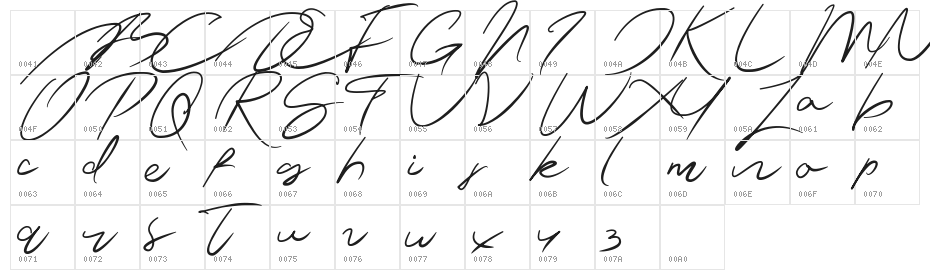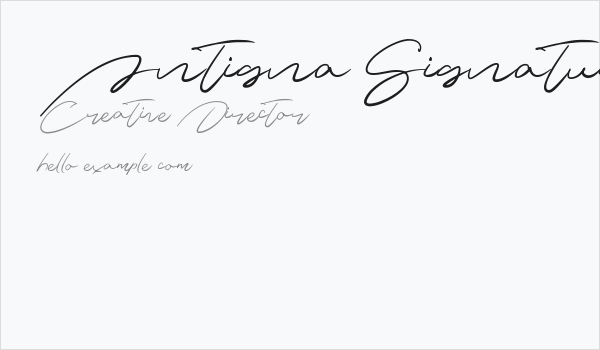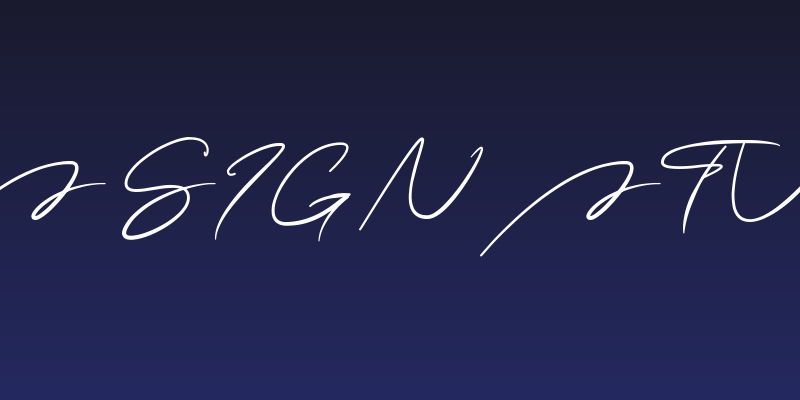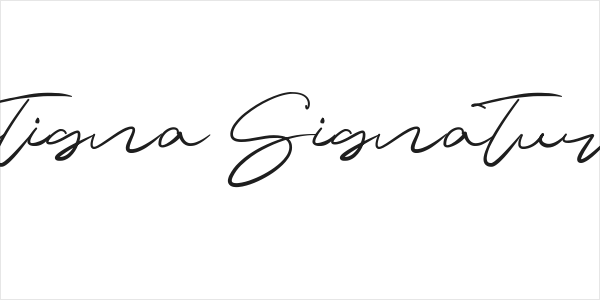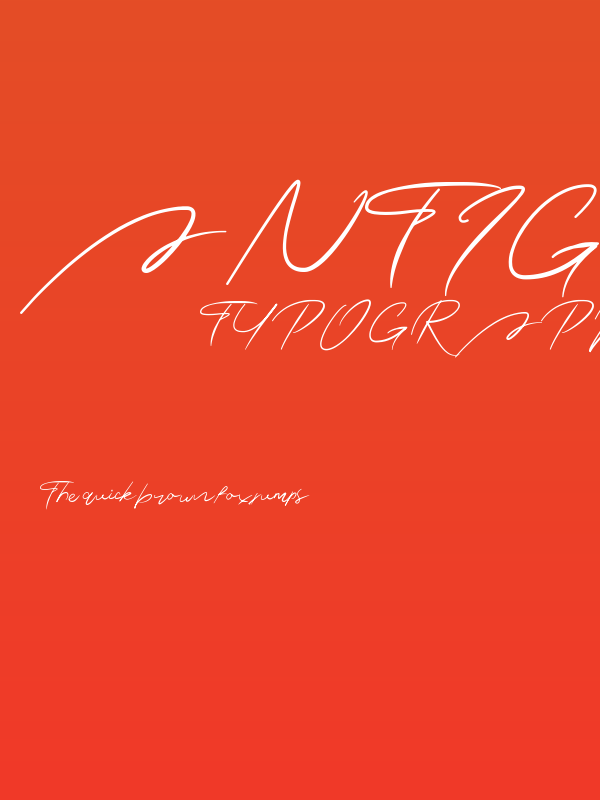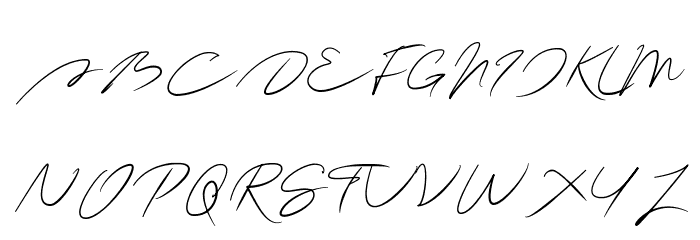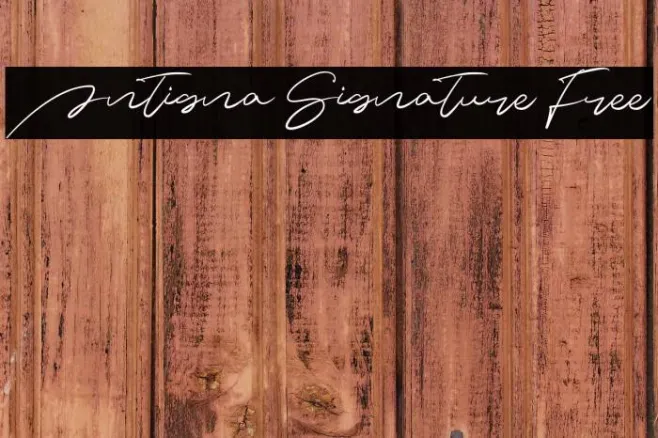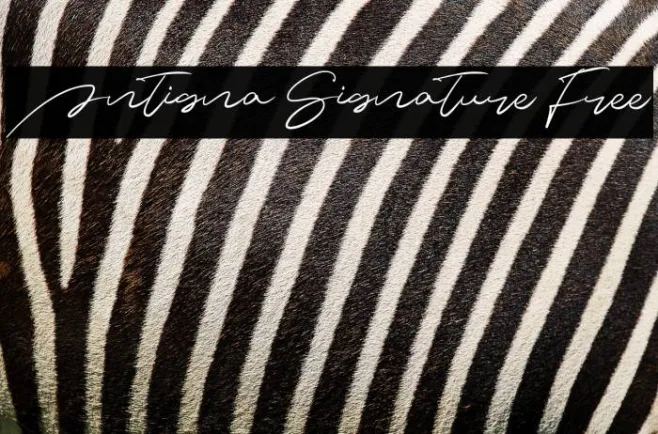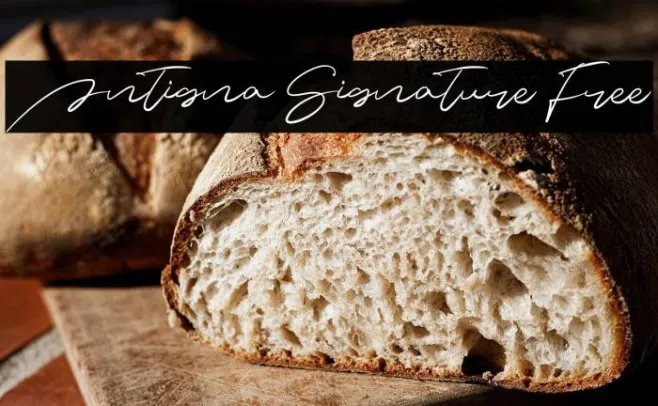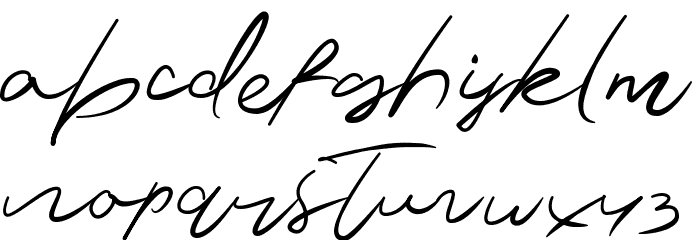
Antigna Signature Free Font
Antigna Signature Free Description
This font exudes a sophisticated and elegant handwritten style, characterized by its fluid and graceful strokes. The letters are connected in a flowing manner, reminiscent of a personal signature, which gives it a unique and personal touch. The uppercase letters maintain a consistent height, while the lowercase letters vary in size, adding to the dynamic and lively appearance. The strokes are thin and delicate, yet they maintain a clear readability. This font is perfect for adding a touch of class and individuality to any project, making it ideal for personal branding, invitations, or any design that requires a personal touch.
| Proposed Projects | Ideal for personal branding, invitations, greeting cards, and elegant stationery. |